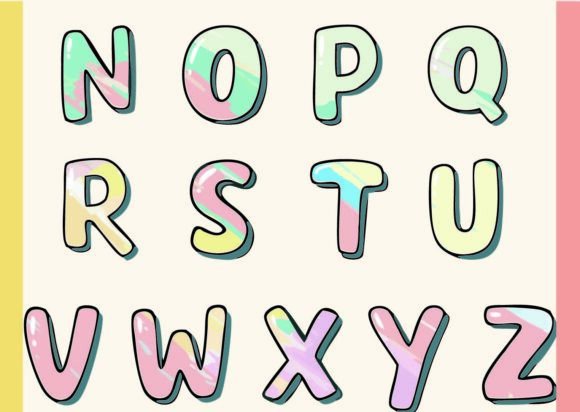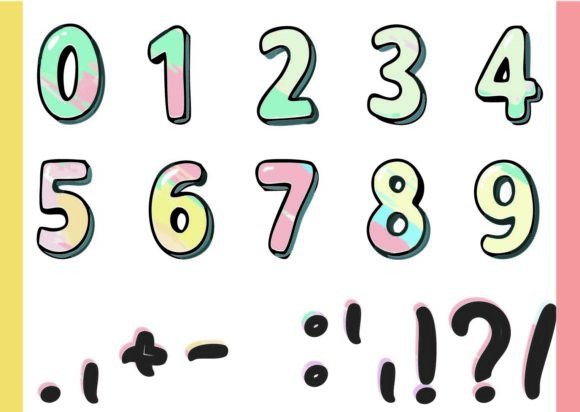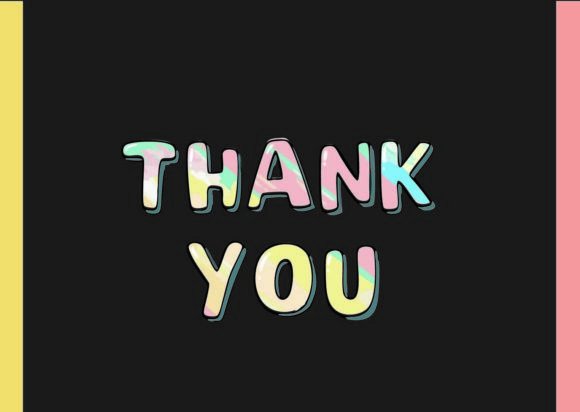
Aria Font: A Colorful Heaven for Designers and Crafters
Are you tired of traditional fonts with a single color? Look no further than the Aria Font, a revolutionary color font that will take your designs to the next level. This stunning font features every single glyph with a different set of colors, creating a colorful heaven that will inspire your creativity.
A Closer Look at the Glyphs
If you take a closer look at the glyphs in the Aria Font, you’ll notice complex sets of paths and connections in every single one of them. Each glyph is meticulously designed to be a typographic painting, with intricate details and vibrant colors. The level of detail in this font is unparalleled, making it a true masterpiece for designers and crafters.
What Makes Aria Font Special?
Use Aria Font in Your Designs
The Aria Font is perfect for a range of design projects, from digital art to craft projects. Here are a few ideas to get you started:
- Create stunning digital art with vibrant colors and intricate details
- Design beautiful greeting cards and invitations with colorful typography
- Add a pop of color to your craft projects, such as scrapbooking and paper crafting
- Use the font to create eye-catching social media graphics and posters
Tips for Using Aria Font
Here are a few tips to help you get the most out of the Aria Font:
- Experiment with different colors and designs to find the perfect look for your project
- Use the font to add a touch of personality to your designs
- Don’t be afraid to get creative and try new things – the Aria Font is designed to inspire your creativity
The Aria Font is a game-changer for designers and crafters. With its unique color glyphs and complex designs, this font is sure to inspire your creativity and take your designs to the next level. Whether you’re a professional designer or a crafty hobbyist, the Aria Font is a must-have addition to your font collection.